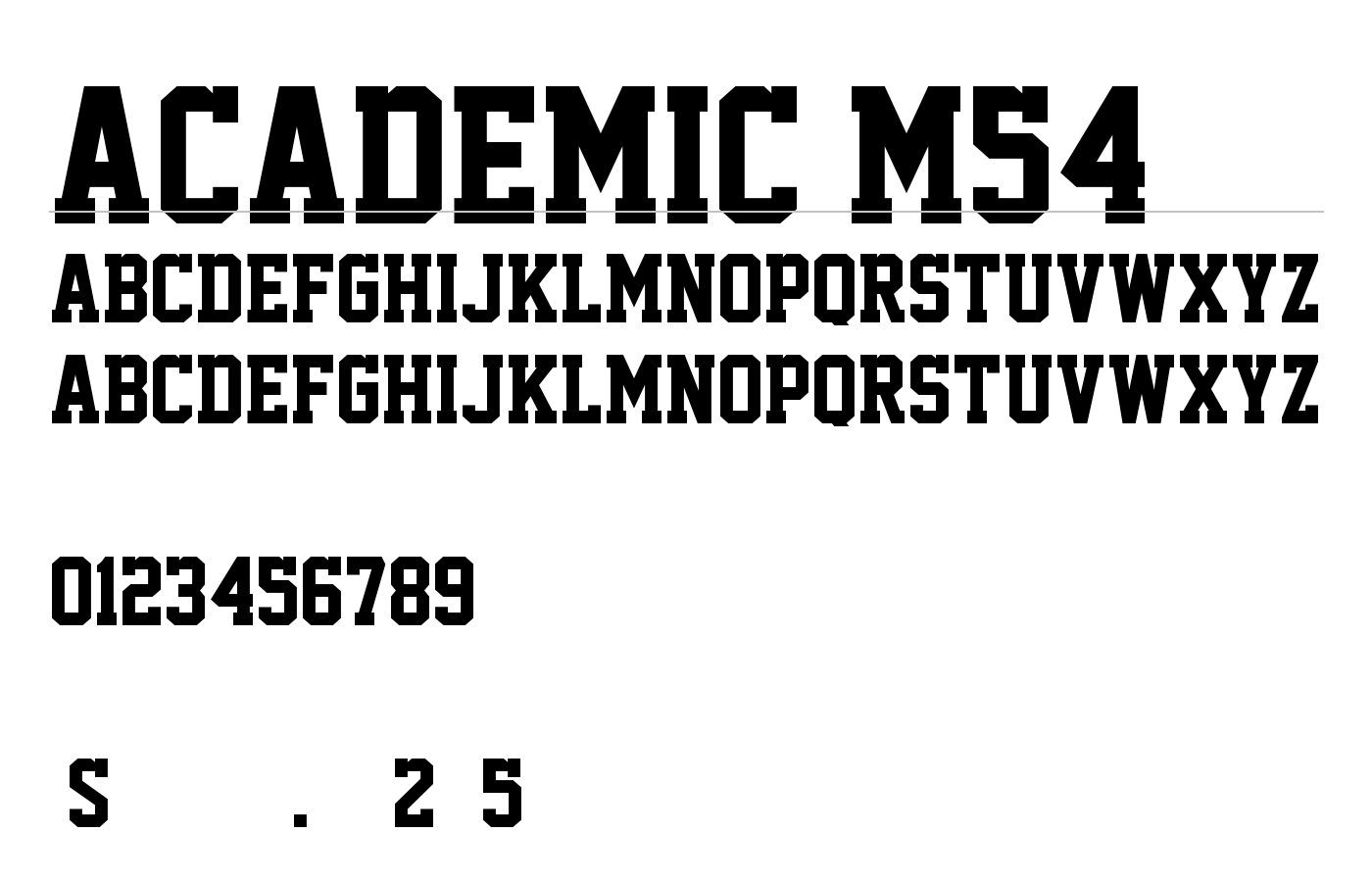
Academic M54 is a bold slab serif font with a strong, collegiate character, featuring thick, blocky serifs and a condensed width that conveys a sturdy, confident feel. Its uniform stroke weight and geometric shapes make it perfect for impactful headlines, sports branding, or any design that needs a touch of vintage academic or athletic spirit. This font works especially well where boldness and clarity are essential, offering a classic yet energetic vibe.
Academic M54 Font
About Academic M54 Font